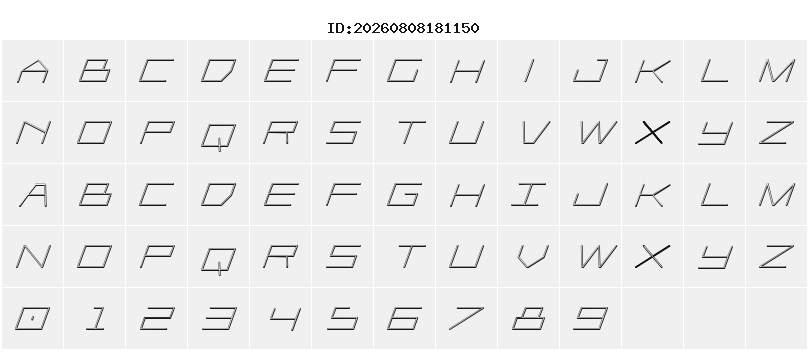
• Font Name: Player 1 Up 3D Italic
• Full Font Name: Player 1 Up 3D Italic
About Player 1 Up 3D Italic.ttf
Player 1 Up 3D Italic.ttf is a modern, elegant sans-serif font designed for ultimate readability and visual harmony. Perfect for branding, headlines, web design, and print materials.